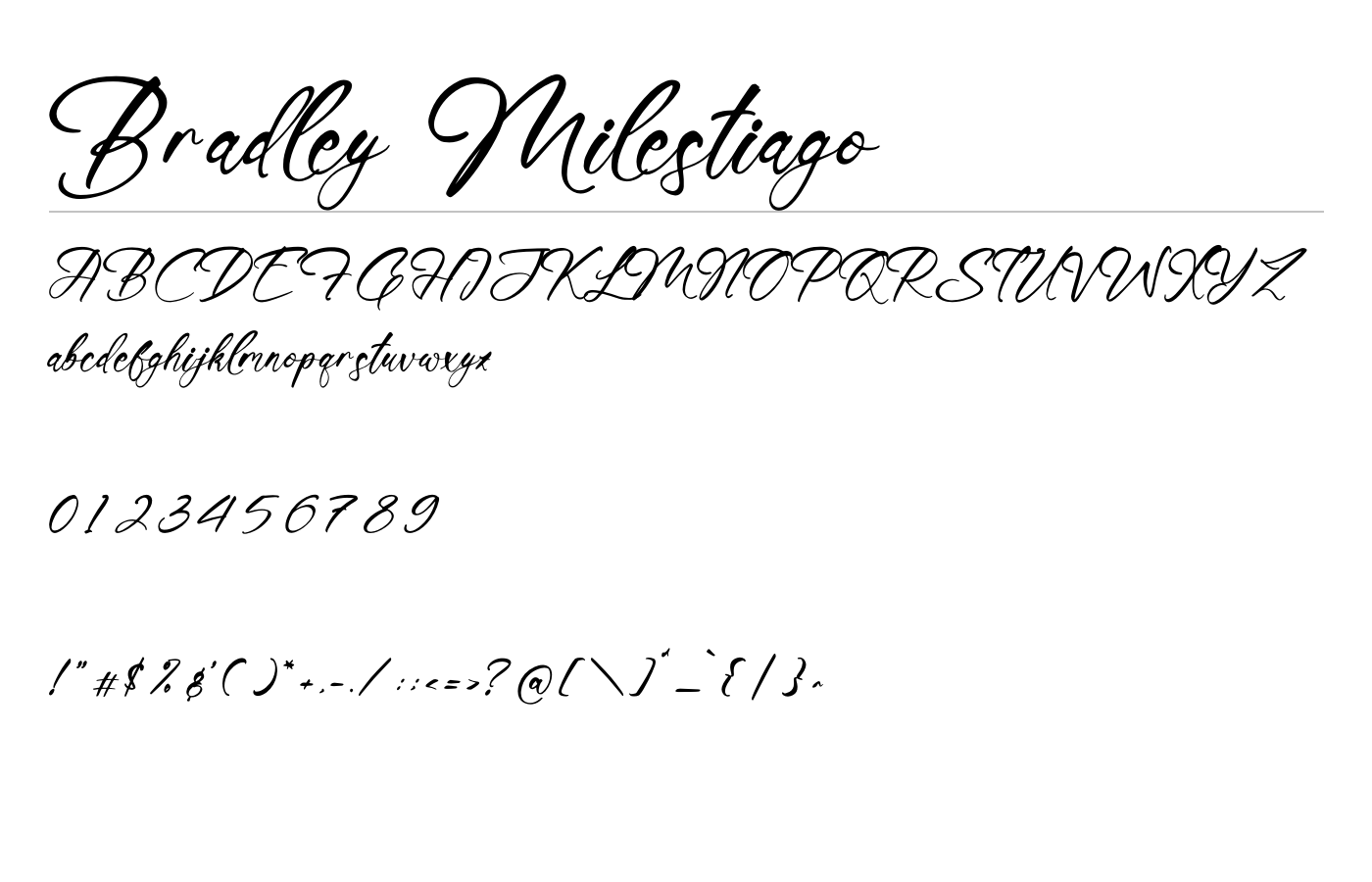
Bradley Milestiago is a graceful script font with elegant, flowing letterforms that mimic natural handwriting. Its delicate, slightly varied strokes and high contrast give it a refined, sophisticated feel, making it perfect for invitations, branding, and stylish editorial designs where a touch of luxury and personality is desired. This font works beautifully in headlines or short texts that aim to communicate elegance and creativity.
Bradley Milestiago Font
About Bradley Milestiago Font